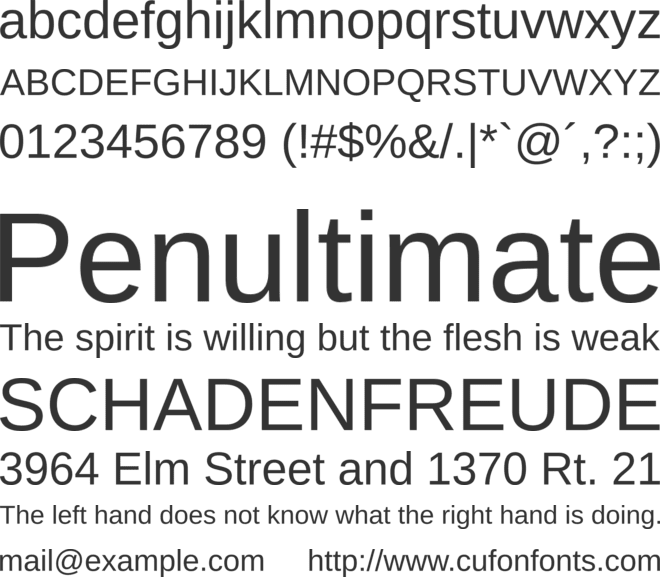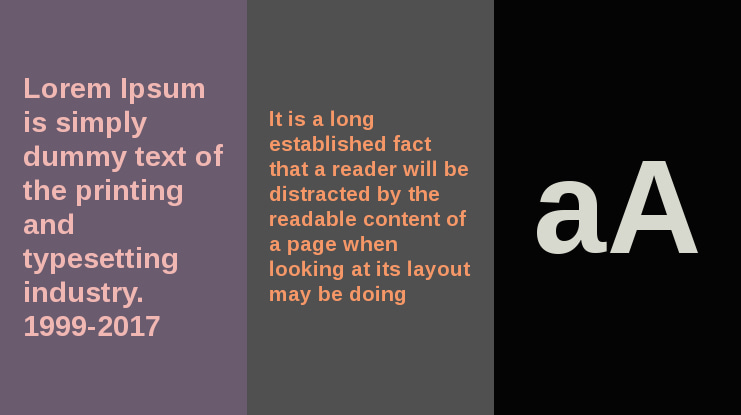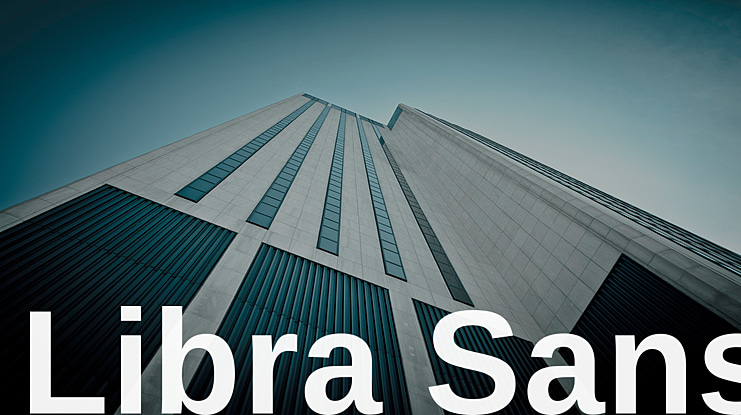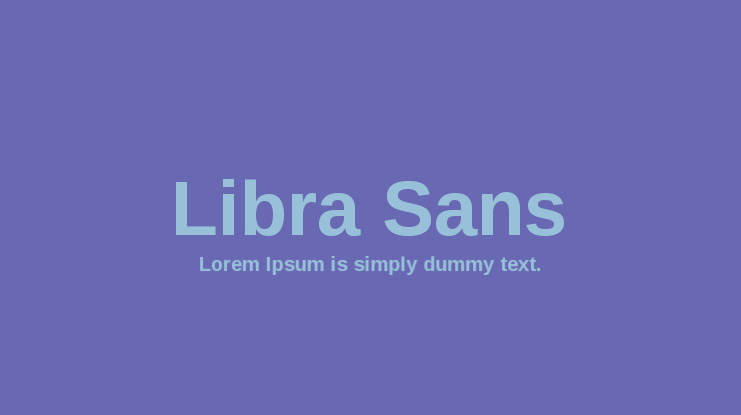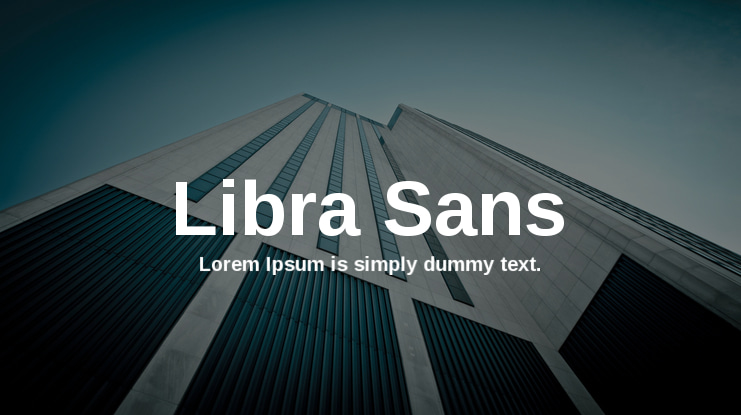
Libra Sans is derivated from the second version of Liberation fonts. Libra Sans includes as local features for Bulgarian language the so-called "Bulgarian" letterform model (which has been proposed by a group of Bulgarian designers in the 1960s). and aims to represent the modern Bulgarian view of Cyrillic typography.